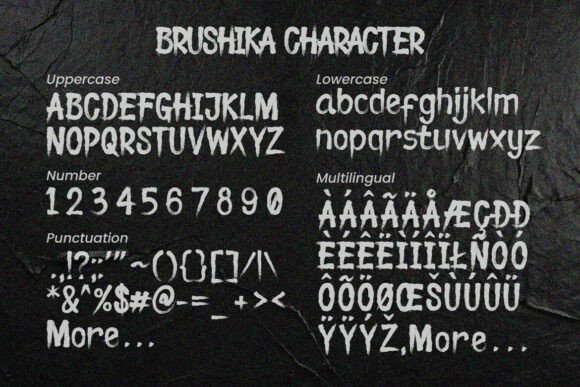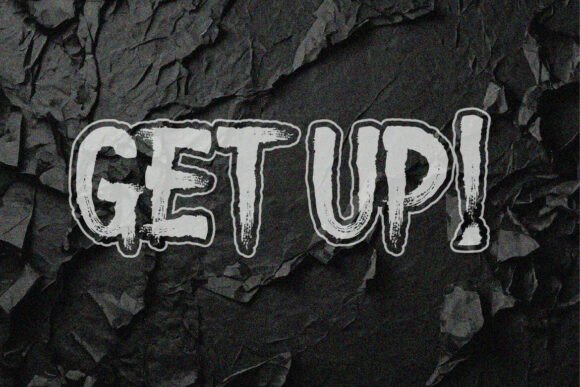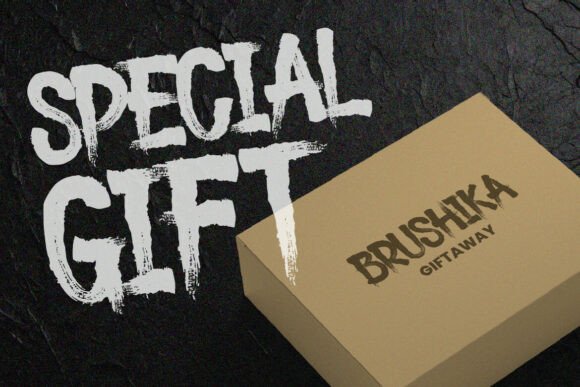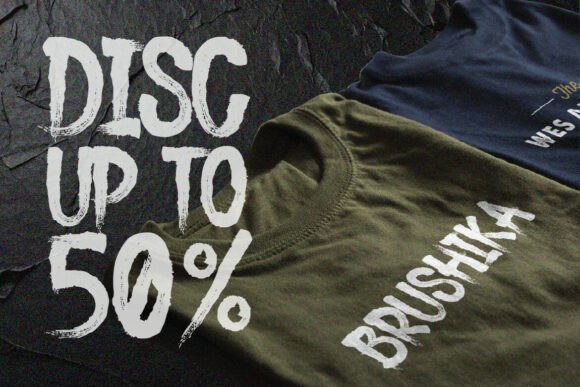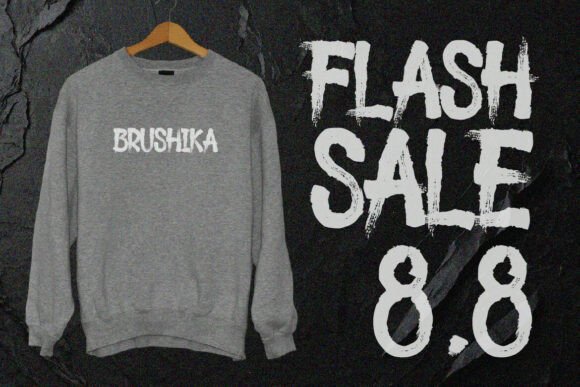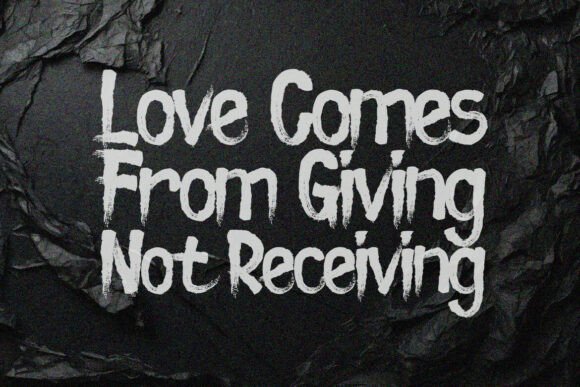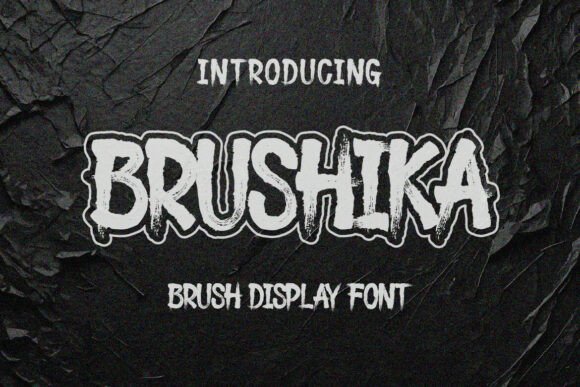
Unleash Bold Creativity with Brushika Font
In the world of typography, few fonts manage to capture the essence of raw, untamed creativity like Brushika. This bold, brush font is designed to breathe life into your designs, infusing them with the organic flow and rugged charm of hand-painted artistry. With its textured edges and bold strokes, Brushika is the perfect choice for creators who crave authenticity and edge in their work.
The Essence of Hand-Painted Artistry
Brushika is more than just a font – it’s an experience. Its unique, hand-painted feel brings a level of depth and emotion to your designs that’s hard to achieve with more traditional fonts. Every letter, every word, and every sentence is imbued with the raw energy of a brush stroke, giving your work a sense of movement and spontaneity that’s impossible to replicate.
Perfect for Striking Logos and Headlines
Whether you’re crafting a striking logo, a powerful headline, or an expressive visual, Brushika is the perfect tool for the job. Its bold, attention-grabbing style is designed to make your message stand out, while its textured edges and organic flow add a level of sophistication and nuance that’s sure to impress.
Adding Depth and Emotion to Your Designs
One of the key benefits of Brushika is its ability to add depth and emotion to your designs. Its hand-painted feel gives your work a sense of humanity and vulnerability, making it more relatable and engaging to your audience. Whether you’re creating a brand identity, a marketing campaign, or a personal project, Brushika can help you connect with your audience on a deeper level.
Unleash Your Creativity with Brushika
So why choose Brushika for your design needs? Here are just a few reasons why this bold, brush font is the perfect choice for creators who crave authenticity and edge:
- Raw, untamed creativity: Brushika’s hand-painted feel gives your designs a level of raw, untamed creativity that’s hard to achieve with more traditional fonts.
- Organic flow: Its textured edges and bold strokes give Brushika an organic flow that’s perfect for creating striking logos, headlines, and visuals.
- Rugged charm: Brushika’s rugged charm and authentic feel make it the perfect choice for creators who want to add a level of sophistication and nuance to their work.
- Unmistakable personality: With Brushika, you can add a level of personality and emotion to your designs that’s sure to make them stand out.
Tips for Using Brushika in Your Designs
So how can you get the most out of Brushika in your designs? Here are a few tips to keep in mind:
- Use it boldly: Brushika is a bold, attention-grabbing font – use it to make a statement in your designs.
- Experiment with colors: Brushika’s textured edges and organic flow make it perfect for experimenting with different colors and textures.
- Mix it with other fonts: Brushika can be paired with a variety of other fonts to create a unique, visually appealing design.
- Play with texture: Brushika’s hand-painted feel makes it perfect for adding texture and depth to your designs.
In conclusion, Brushika is a bold, brush font that’s designed to unleash your creativity and bring a level of raw, untamed energy to your designs. With its textured edges, bold strokes, and organic flow, Brushika is the perfect choice for creators who crave authenticity and edge in their work. Whether you’re crafting striking logos, powerful headlines, or expressive visuals, Brushika can help you connect with your audience on a deeper level and add a level of personality and emotion to your designs. So why settle for a traditional font when you can unleash your creativity with Brushika?